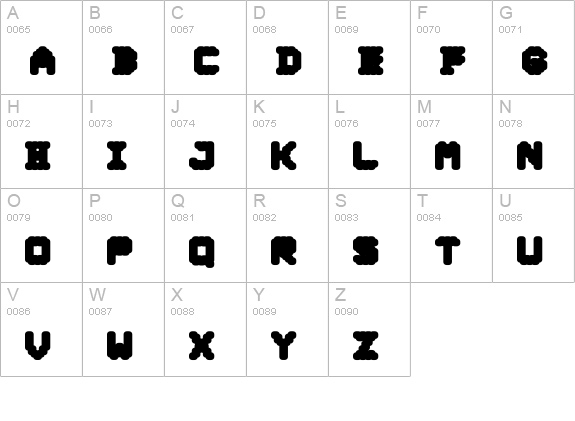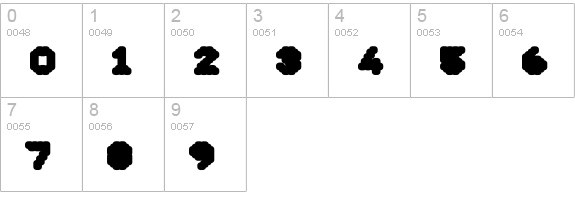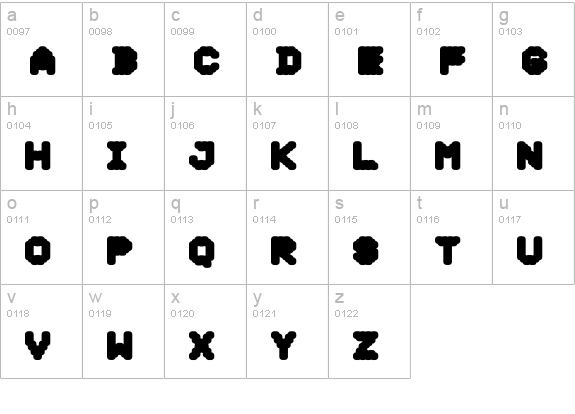
DS Ticket85 Font Details
DS Ticket85 font is a modern and stylish typeface that exudes sophistication and elegance. With its sleek lines and unique design, this font is perfect for a wide range of design projects, from branding to advertising to social media graphics. The clean and professional look of DS Ticket85 font makes it a versatile choice for any project. One of the best things about DS Ticket85 font is that it is completely free to download at FontsMarket.com. This means that you can use this beautiful font in your projects without any cost, making it an excellent choice for designers on a budget. Whether you're working on a personal project or a client's design, DS Ticket85 font is sure to impress with its modern and refined style. So why wait? Head over to FontsMarket.com today and download DS Ticket85 font for free to add a touch of sophistication to your next design project.